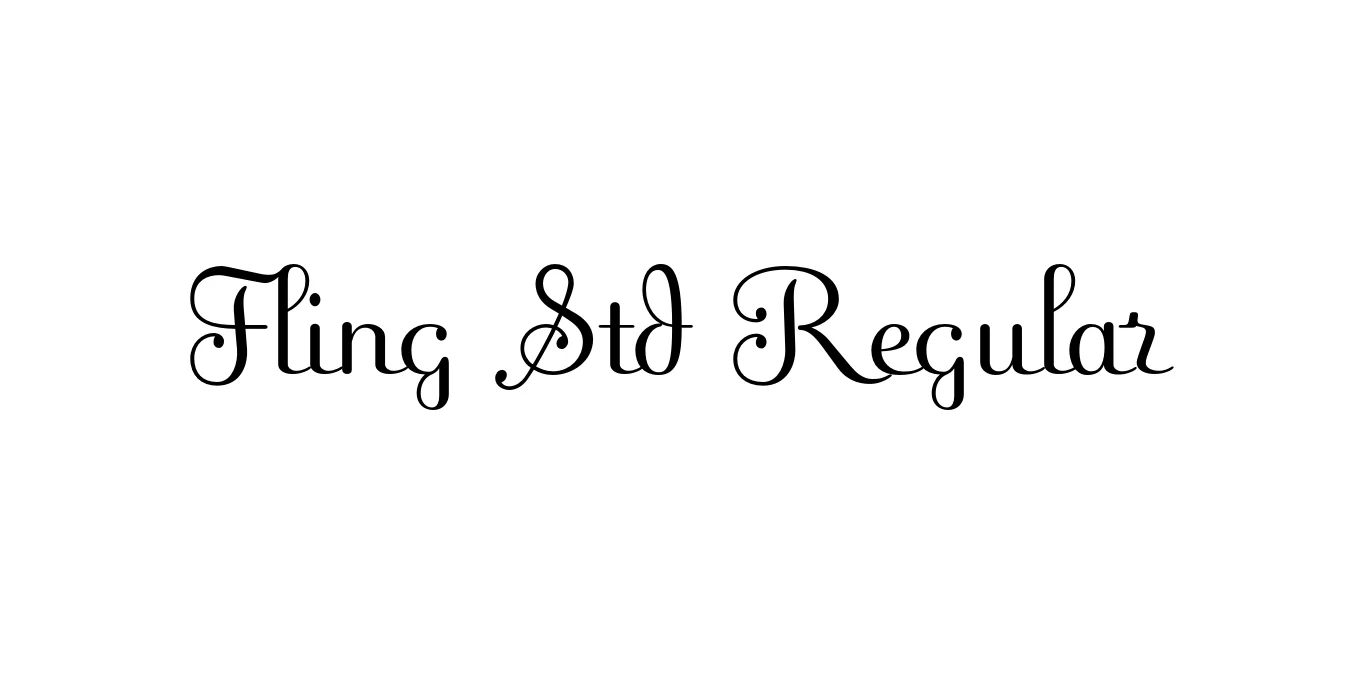
Fling Std Regular
Designed by Michael Gills
Fling Std Regular is an elegant and sophisticated script typeface designed by Michael Gills in 1995 for Letraset. Drawing inspiration from the delicate French cursive styles of the 18th century, this font showcases a beautiful balance between traditional calligraphy and modern digital precision. Its fluid strokes and high-contrast lines convey a sense of grace and luxury, making it a staple for high-end design projects that require a touch of historical class and visual interest.
The typeface is characterized by its sweeping ascenders and descenders, which create a rhythmic flow across the page. Unlike more rigid formal scripts, Fling maintains a level of approachability while remaining decidedly formal. It has been widely used in the fashion and beauty industries, as well as for high-profile event invitations, where its decorative nature can truly shine without compromising legibility in short blocks of text.
Fling Std Regular Best Uses
Perfect for invitations, save-the-dates, and place cards due to its romantic and fluid flair.
Ideal for boutique logos, high-end packaging, and perfume labels that require a sophisticated touch.
Excellent for mastheads, pull quotes, and chapter headings in fashion magazines.
Adds a sense of prestige and historical importance to awards and official documents.